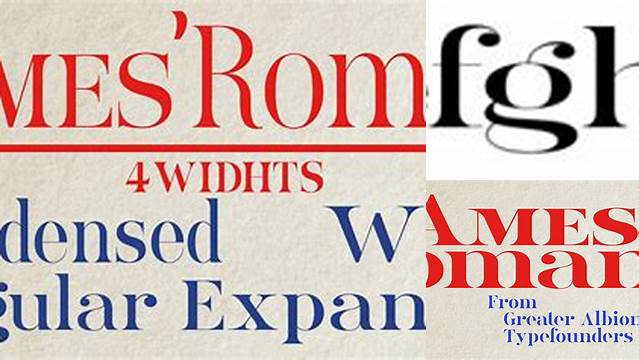
Are you looking for Ames Roman Wide font free download? You've come to the right place. Ames Roman Wide is a distinctive and versatile typeface that can add a touch of elegance and readability to various design projects. This article provides a detailed guide on where to find the font, how to download it, its uses, and some tips to maximize its potential. Let's dive in!
What is Ames Roman Wide Font?
Ames Roman Wide font is a typeface characterized by its broad, sturdy letterforms and classic Roman styling. It exudes a sense of timelessness and reliability, making it a popular choice for projects that require a touch of sophistication. Its wide set ensures excellent readability, even at smaller sizes, which is crucial for body text in books, articles, and reports. The font's clean lines and balanced proportions contribute to a professional and polished look, making it suitable for corporate branding and formal documentation. In essence, Ames Roman Wide combines aesthetic appeal with functional design, catering to both visual and practical needs. Its versatility allows it to seamlessly integrate into a wide range of design contexts, from traditional print media to modern digital applications. The distinctiveness of the font also means that it can help set your work apart, providing a unique visual identity that captures attention and conveys a sense of authority. When selecting a typeface for your project, considering Ames Roman Wide ensures you are opting for a design that is both visually pleasing and highly functional. Understanding the qualities and attributes of this font will empower you to use it effectively, enhancing the overall impact and readability of your final product. Whether you are designing a book, creating a website, or developing marketing materials, Ames Roman Wide offers a reliable and elegant solution that meets diverse design requirements. Its broad appeal and adaptability make it a valuable asset in any designer's toolkit.
Key Features of Ames Roman Wide
- Readability: Its wide letterforms enhance readability, making it suitable for extended texts.
- Versatility: Works well in both print and digital media.
- Elegance: Adds a touch of sophistication to any project.
- Professionalism: Ideal for corporate branding and formal documents.